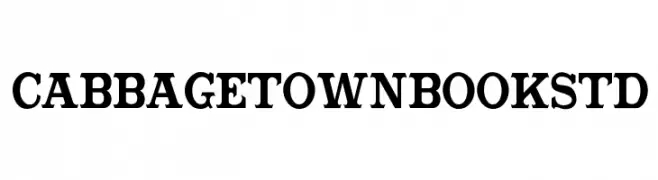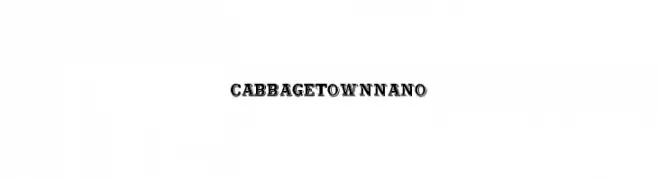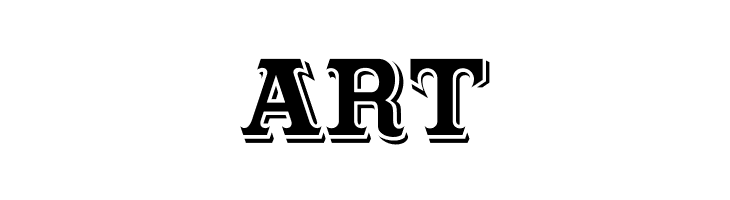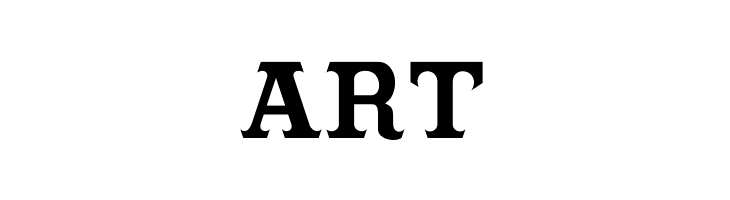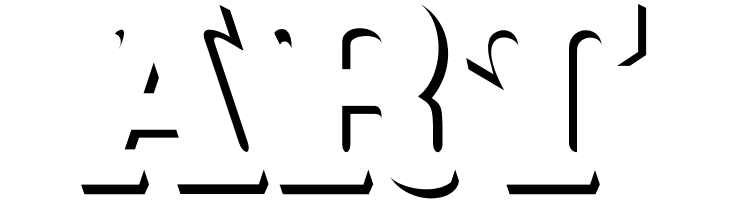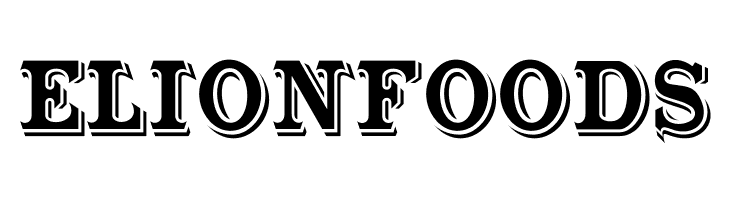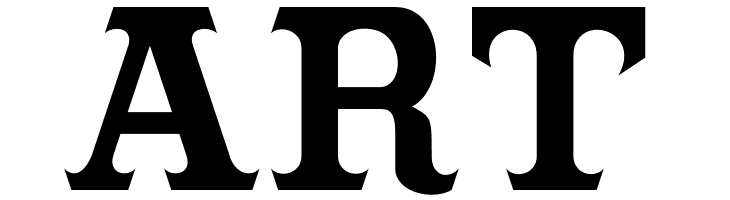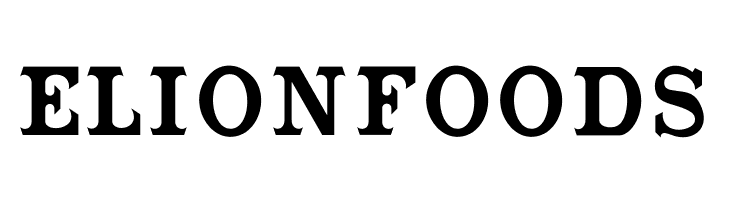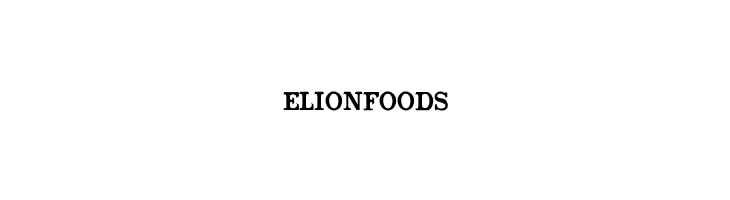
A bold, decorative font with vintage and theatrical flair.
A bold, decorative font with contour outlines and playful curves.
A bold, shadowed font with a vintage, theatrical flair.
A bold, decorative font with a three-dimensional shadow effect and prominent serifs.
A bold, high-contrast serif font with strong, authoritative strokes.
A bold, classic serif font with strong, prominent strokes.
A bold, classic serif font with strong vertical lines and pronounced serifs.